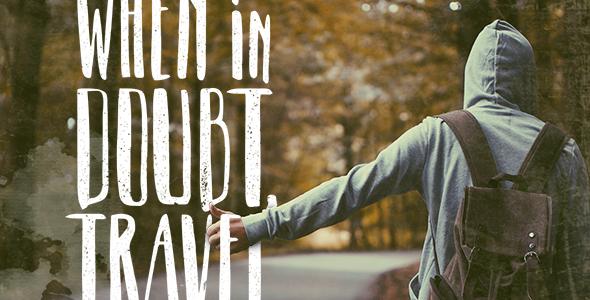
Scratchbook Typeface
Scratchbook typeface is a handbrush font includes 2 different styles that could be used in a variety of designs such as Logos, Greeting Cards, Stationery Design, Invitations, T-shirts, Apparel, Packaging designs, Posters, Typographic Design, and many more If you have any questions before or after your purchase, please do not hesitate to get in touch. Hope you all enjoy it!